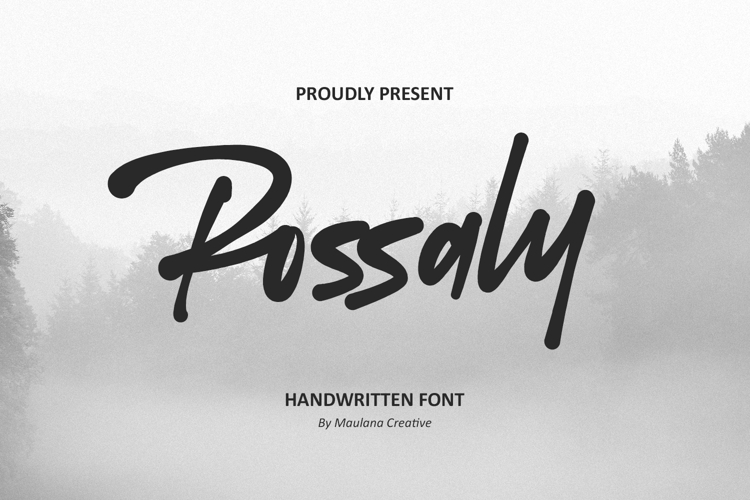
Rossaly is a beautiful and elegant handwritten script font that captures the essence of natural handwriting with a smooth, flowing rhythm. Its casual yet refined strokes create a perfect balance between charm and professionalism ideal for branding, photography logos, social media posts, invitations, quotes, and product packaging.
With Rossaly, every letter feels genuine, giving your designs a warm, human touch. The font includes uppercase and lowercase letters, numbers, punctuation, and multilingual support making it versatile for both awesome projects.
- Ligatures Style